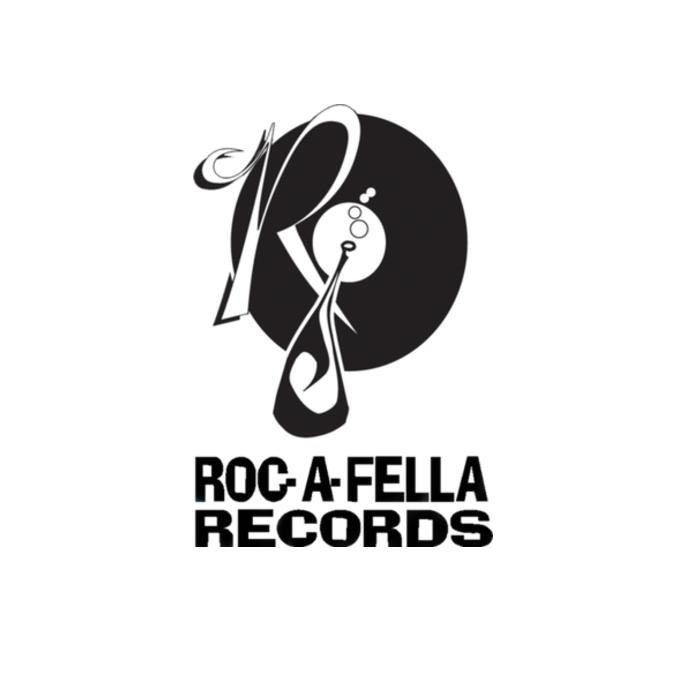
Roc-A-Fella Records Font
Fonts in UseRoc-A-Fella Records was an American record label founded in 1995 by Jay-Z, Damon Dash, and Kareem Burke. It became one of the most successful and influential hip-hop labels of the late 1990s and early 2000s, releasing albums by Jay-Z, Kanye West, and other notable artists.
The decorative typeface used in the logo of the record label is Ad Lib, designed in 1961 by Freeman Craw for American Type Founders.